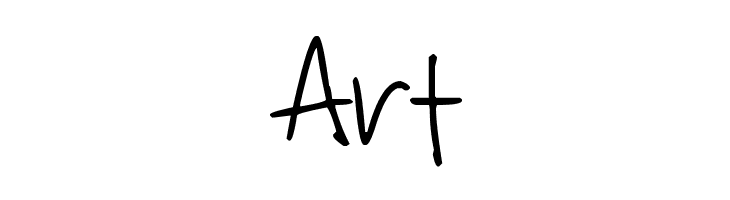
• Pea Colton
A playful, casual handwritten font with a whimsical and informal style.
• Pea Cuartas
A playful, handwritten font with bold strokes and a casual, informal style.
• Pea Emma
A playful, handwritten font with rounded, informal letterforms.
• Pea Eshley
A playful, casual handwritten font with a dynamic and informal style.
• Pea Faye
A playful, handwritten font with a whimsical and informal style.
• Pea Frankie
A playful, bold handwritten font with a casual and lively style.
• Pea Hannah
A playful, casual handwritten font with a lively and informal style.
• Pea Heidi Jo
A playful, handwritten font with a casual and informal style.
• Pea Heidi Jo Bold
A bold, handwritten font with a playful and casual style.
• Pea Heidi Jo Messy
A playful, handwritten font with a casual and informal style.